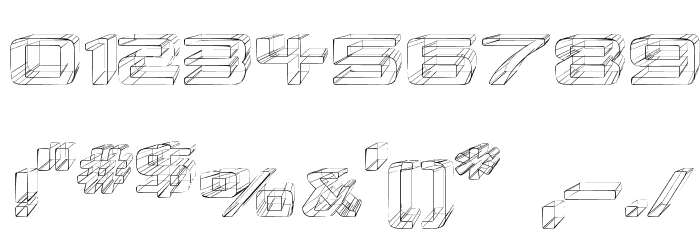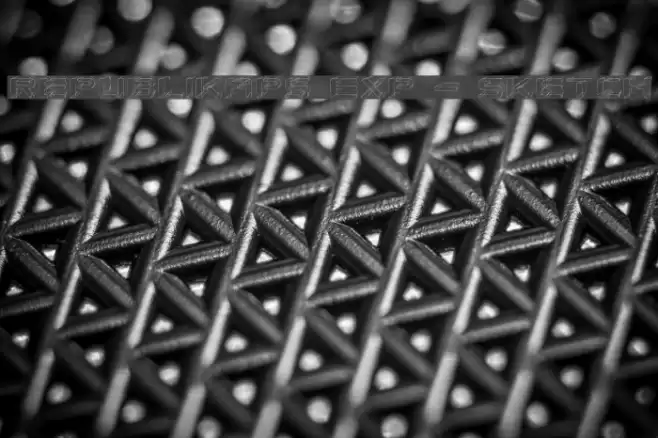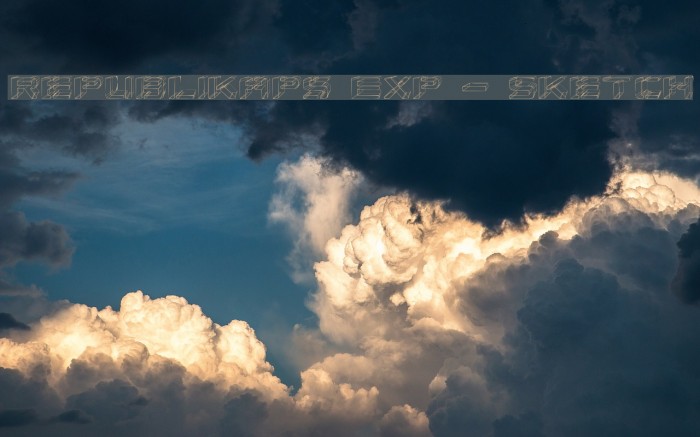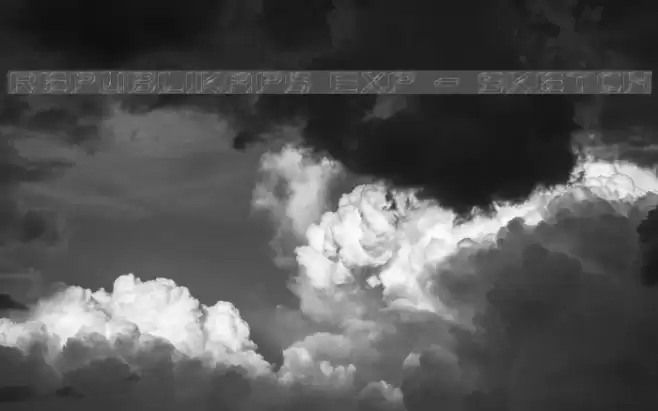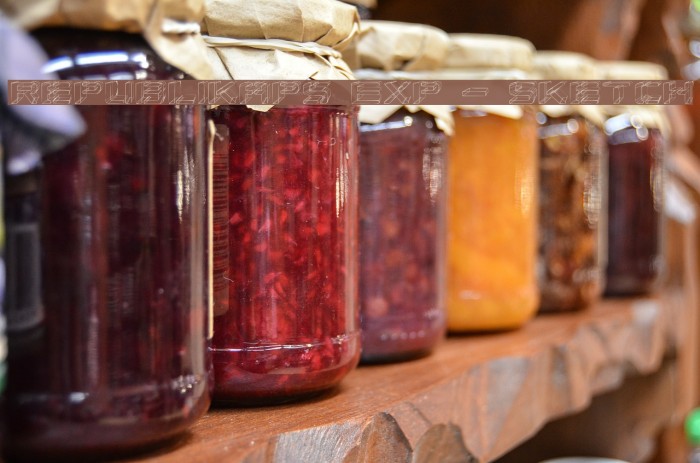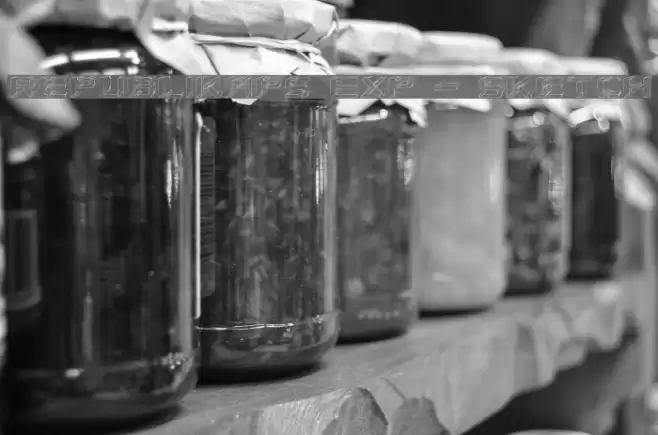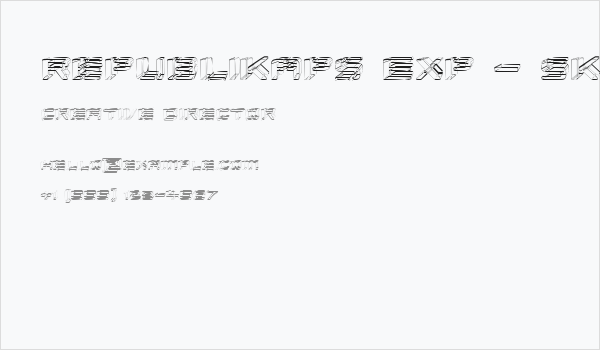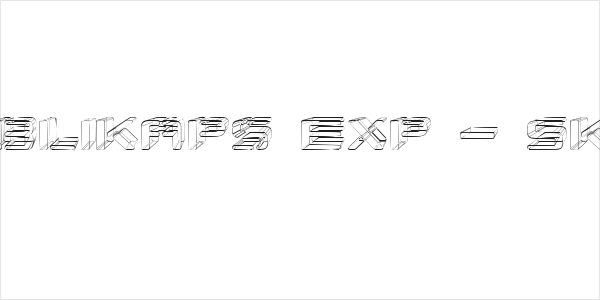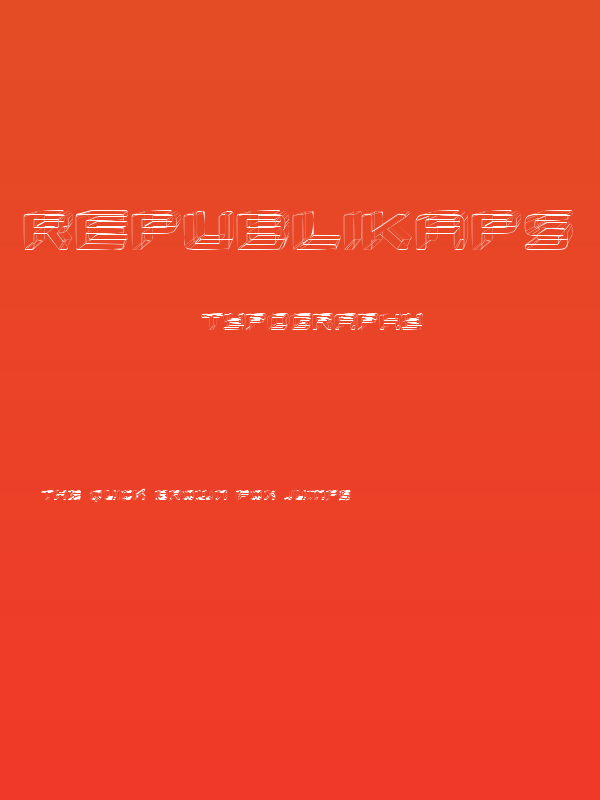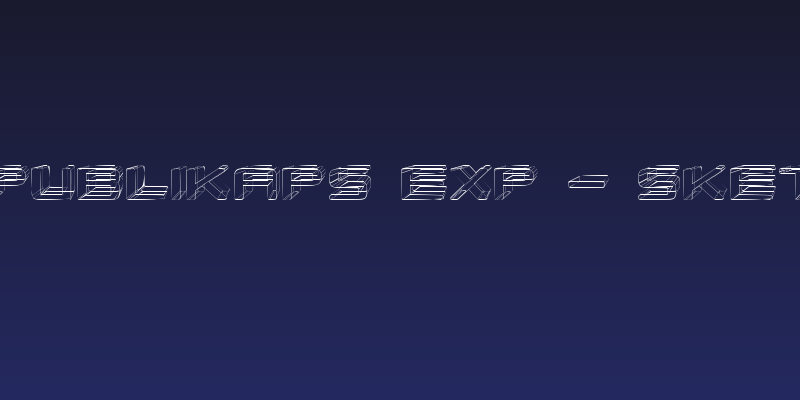
Republikaps Exp - Sketch Font
Republikaps Exp - Sketch Description
This font features a unique, sketch-like design with a three-dimensional appearance. Each character is constructed with overlapping lines that create a sense of depth and movement. The angular, geometric shapes give it a modern and edgy look, while the sketchy outlines add a hand-drawn, artistic touch. The uppercase and lowercase letters maintain a consistent style, with numbers and special characters following the same design principles. This font stands out with its intricate detailing and bold presence, making it ideal for creative and eye-catching designs.
Overall StyleModern, Artistic
Proposed ProjectsIdeal for posters, album covers, branding, and any project requiring a bold, artistic statement.